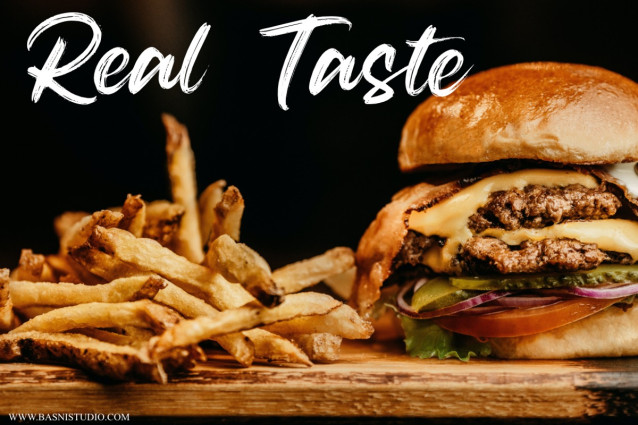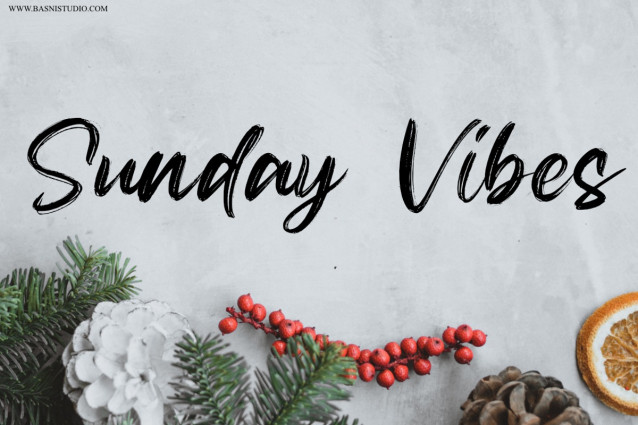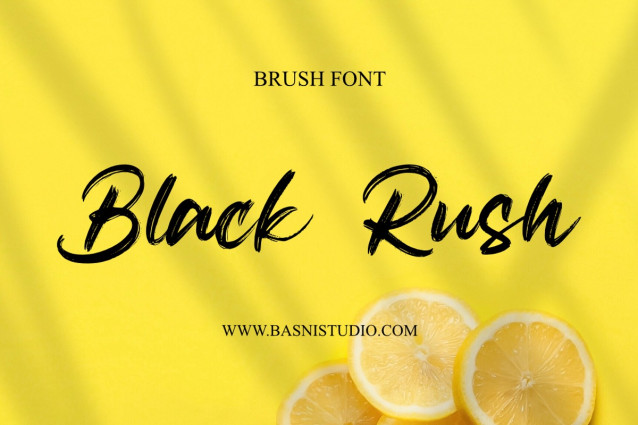
Black Rush Font
Black Rush Font looks naturally & Modern, made with details and precision, perfect for branding, websites, and editorial designs. Includes all upper and lower case letters, multilingual support, punctuation, binding and initial and final swash. everything can be easily accessed using software that supports OpenType